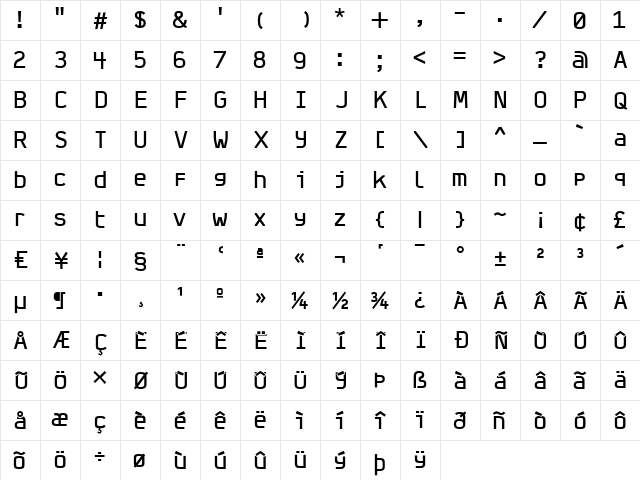
Jigger-AngledFront Regular
| Foundry | Steffen Sauerteig, published by Fontshop International for the FontFont library |
Design Context for Jigger-AngledFront Typeface
Jigger-AngledFront offers clean, dependable letterforms without strong stylistic allegiance, making it a practical choice for designers who need flexibility.